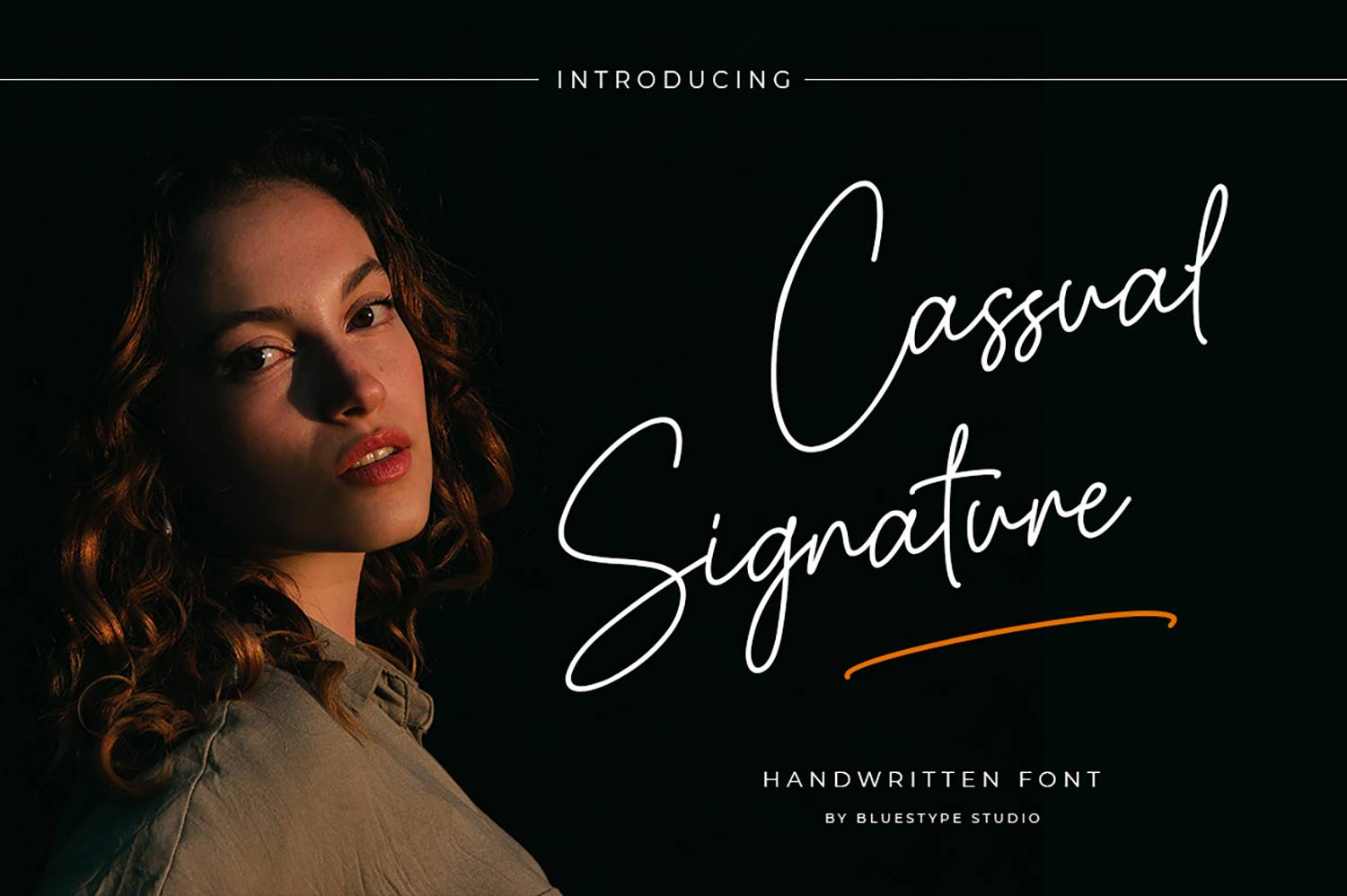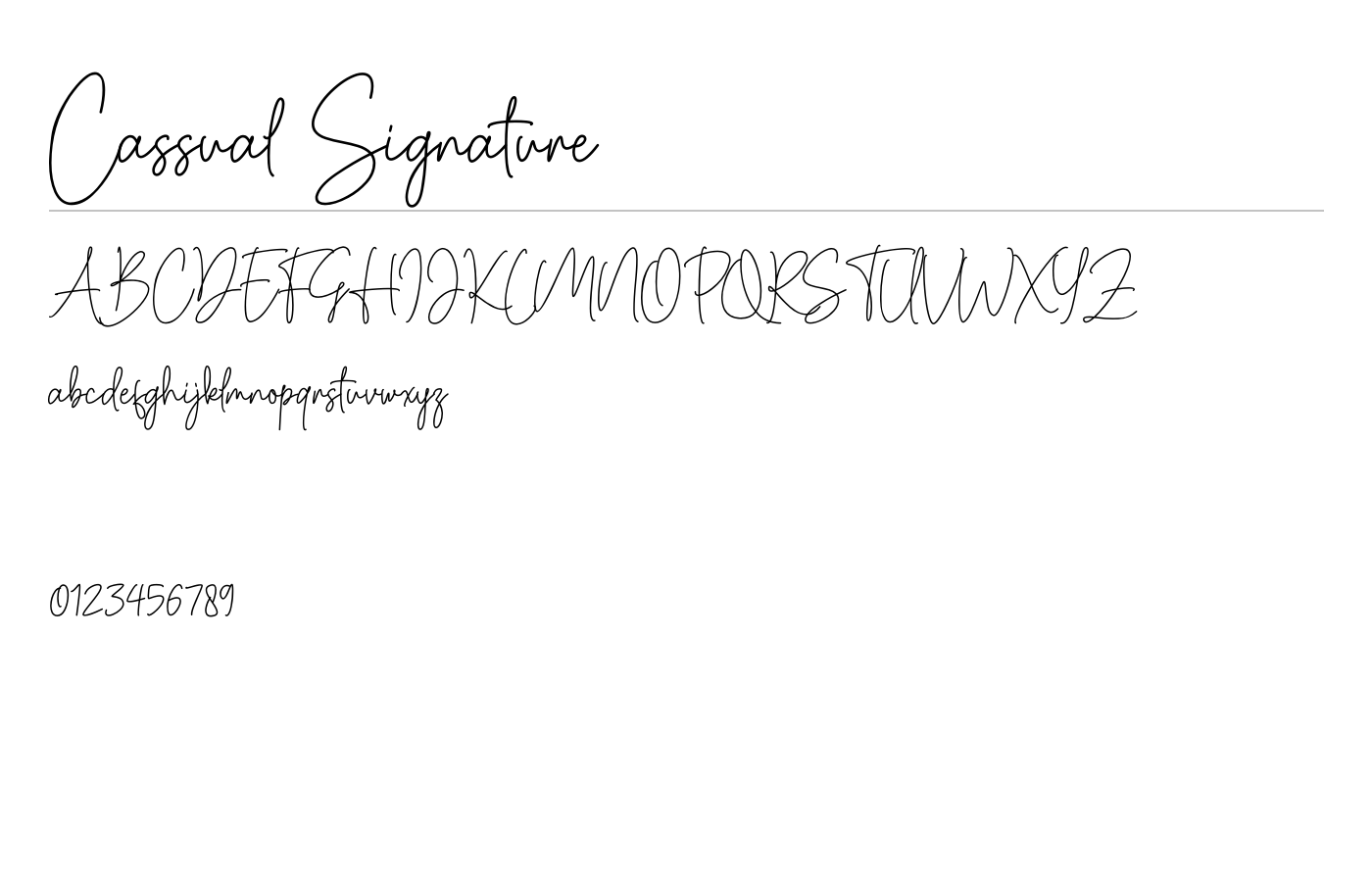
Cassual Signature is a delicate, handwritten script font with a light weight and airy feel, resembling elegant casual handwriting. Its thin, smooth strokes and playful, slightly irregular letterforms create a personal and approachable style, perfect for branding, invitations, and creative projects that seek a sophisticated yet relaxed look. This font works best in designs that aim to convey warmth and authenticity with a modern, elegant touch.
Cassual Signature Font
About Cassual Signature Font
| Font family | Cassual Signature Font |